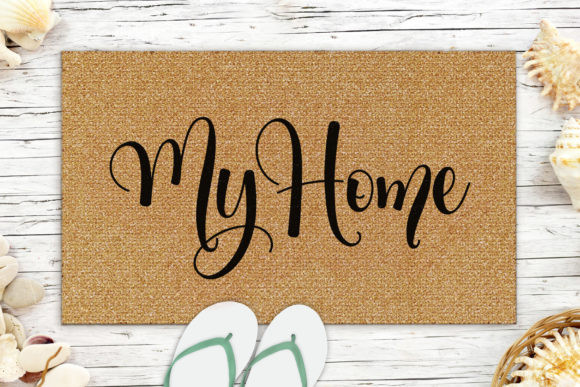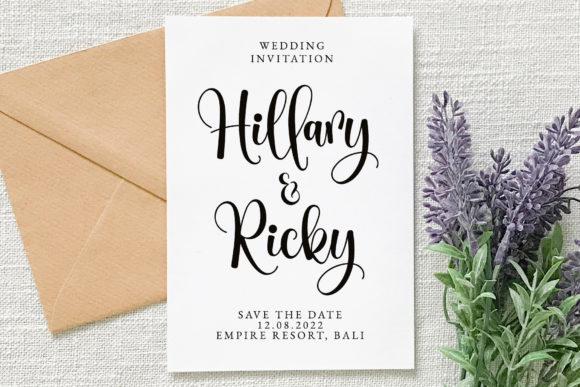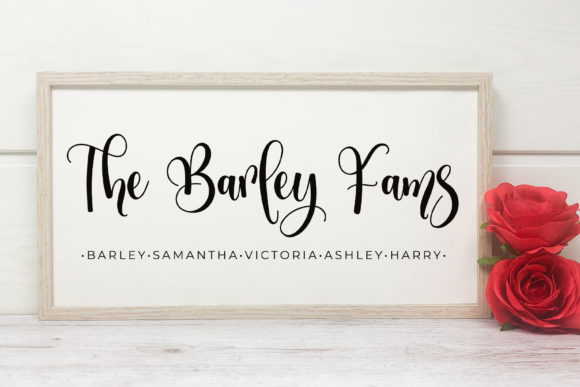
About Thankstory Font
Thankstory is a simple and delicate script font. Its elegant style makes this font the right choice for various design ideas.
Thankstory is perfect font for any projects, such as wedding invitations, t-shirt designs, craftings, stickers, sublimation, and many more.